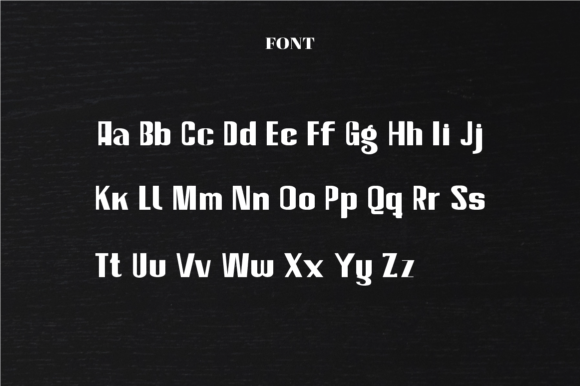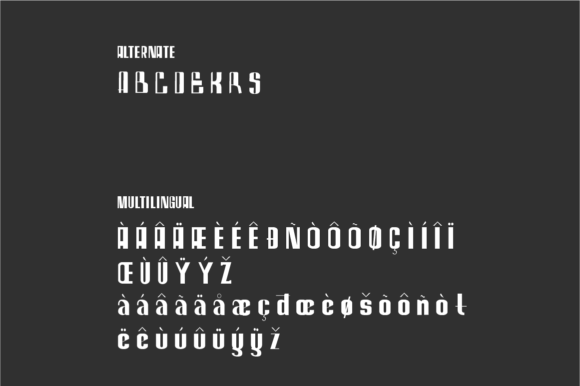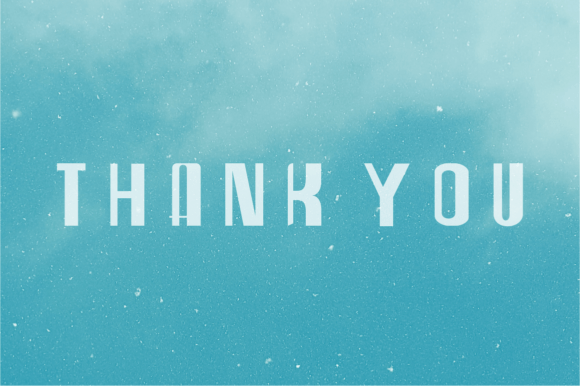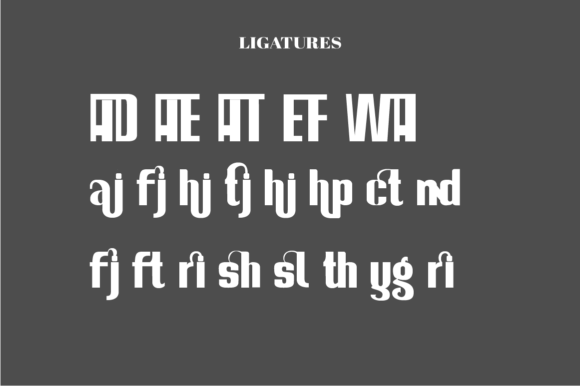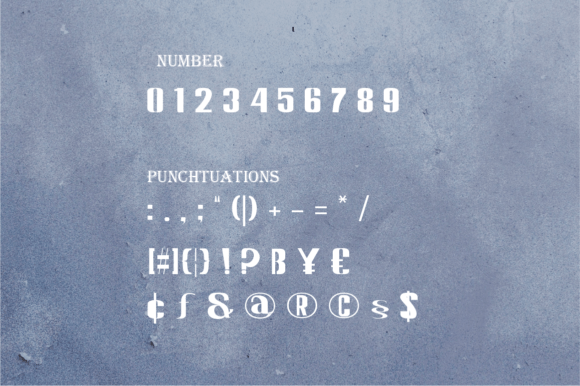
Introducing Beulacany Font: The Futuristic Typeface for Modern Design
In the realm of typography, fonts play a crucial role in shaping the visual identity of a brand, product, or artwork. With the ever-evolving landscape of design, the demand for unique and futuristic fonts has increased significantly. This is where Beulacany Font comes into play – a cutting-edge typeface that embodies the essence of modernity and technological advancements.
What is Beulacany Font?
Beulacany Font is a futuristic sans serif font that draws inspiration from the visual technology prevalent in logos, sci-fi movies, games, and contemporary gadgets. Its design is deeply rooted in minimalist style, making it an ideal choice for designers and crafters seeking a clean and modern aesthetic.
Key Features of Beulacany Font
- Unique Letterforms: Beulacany Font boasts distinctive letterforms that set it apart from traditional fonts. Its characters are carefully crafted to convey a sense of futurism and innovation.
- Minimalist Style: The font’s minimalist design ensures that it remains versatile and adaptable to various design applications, from logos and labels to posters and packaging.
- Sans Serif: As a sans serif font, Beulacany Font exudes a clean and modern feel, making it perfect for designs that require a sleek and contemporary look.
Use Cases for Beulacany Font
Beulacany Font’s versatility makes it an excellent choice for a wide range of design applications, including:
- Logos: Create a lasting impression with a unique and memorable logo that incorporates Beulacany Font.
- Labels: Use Beulacany Font to add a touch of modernity to product labels, making them stand out on store shelves.
- Posters: Add a futuristic flair to your posters with Beulacany Font, perfect for promoting events, products, or services.
- Packaging: Elevate your product packaging with Beulacany Font, creating a cohesive brand image.
- Books: Use Beulacany Font to add a modern twist to book covers, titles, or headings.
- Movies: Beulacany Font is perfect for movie titles, trailers, or promotional materials, adding a touch of futurism and excitement.
- Presentations: Make your presentations more engaging with Beulacany Font, ideal for titles, headings, or bullet points.
- Games: Incorporate Beulacany Font into your game design, creating a cohesive and immersive experience.
Why Choose Beulacany Font?
In a world where visual identity is paramount, Beulacany Font offers a unique opportunity for designers and crafters to create something truly remarkable. Its futuristic design, minimalist style, and versatility make it an excellent choice for anyone seeking to:
- Stand out: Beulacany Font helps you differentiate your design from the competition, making it more memorable and impactful.
- Convey innovation: The font’s futuristic feel perfectly conveys a sense of innovation and forward-thinking, ideal for brands or products that embody these values.
- Enhance brand image: Beulacany Font can help establish a strong brand image, creating a cohesive visual identity that resonates with your audience.
In conclusion, Beulacany Font is a game-changing typeface that offers a unique blend of futurism, minimalism, and versatility. Whether you’re a designer, crafter, or simply someone looking to elevate your visual identity, Beulacany Font is an excellent choice. With its wide range of use cases and benefits, this font is poised to revolutionize the world of typography and design.